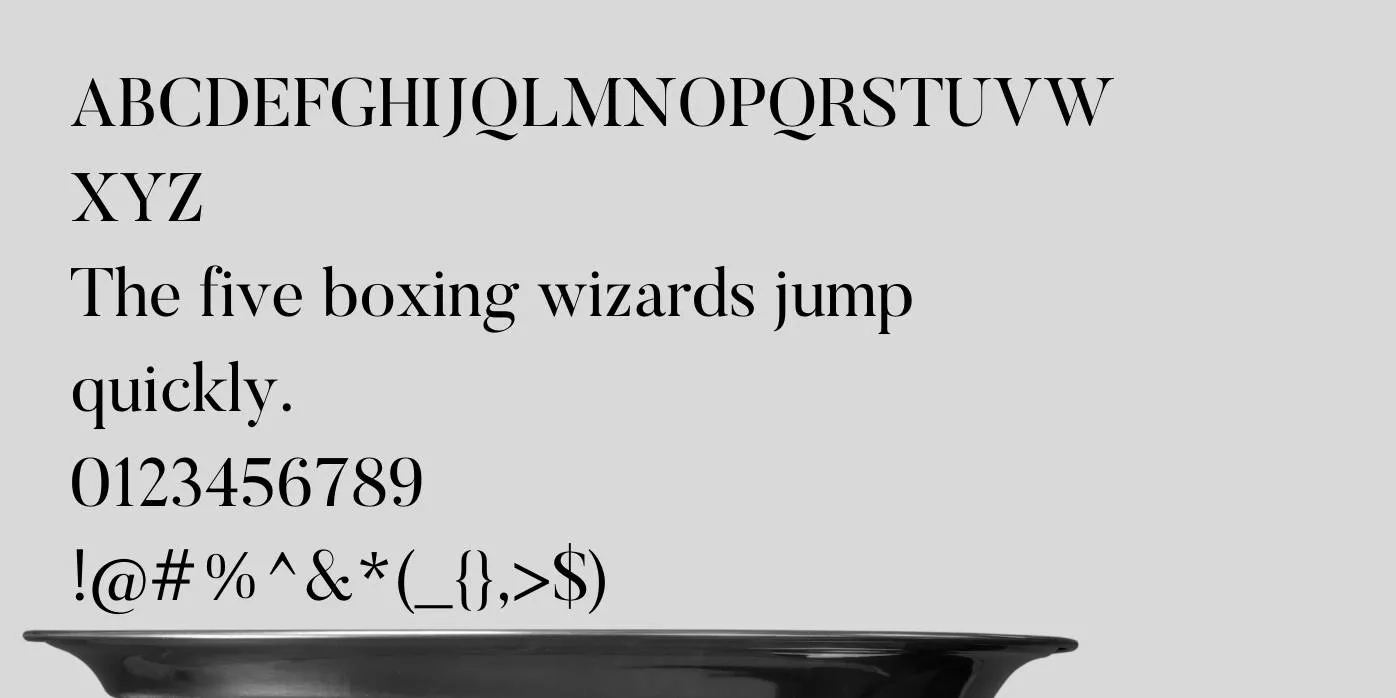
Butler Font
Butler Font is a member of the CSS family and used in Adobe. The typeface belongs to a serif font family. And it is designed by Fabian De Smet a very professional type of artist. The author also made a professional typeface that is Buttler Stencil.
It has a Cutting shape visual and also belongs to a serif family, you can have a look over his collection. While Butler typeface has 14 file formats that have beautiful styles and weights. All the styles have OTF features and various weight that includes Black, Bold, ExtraBold, Light, Medium, Regular, Ultra Light as well, and its Butler stencil file contains the same styles and weights. You can also examine many alternatives of this typeface in the famous web portal Google Fonts as well.